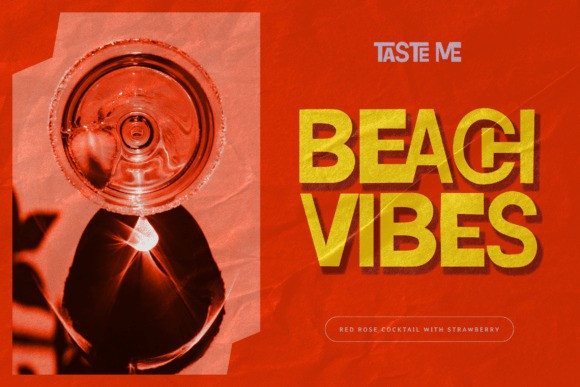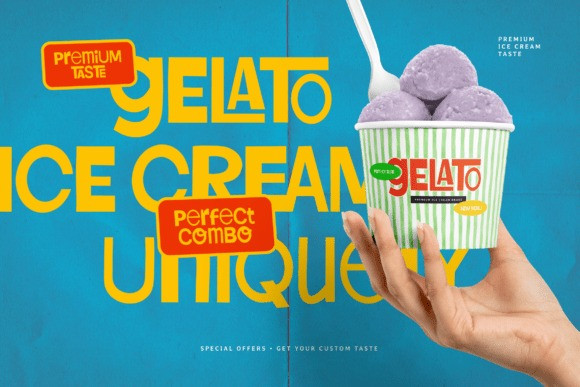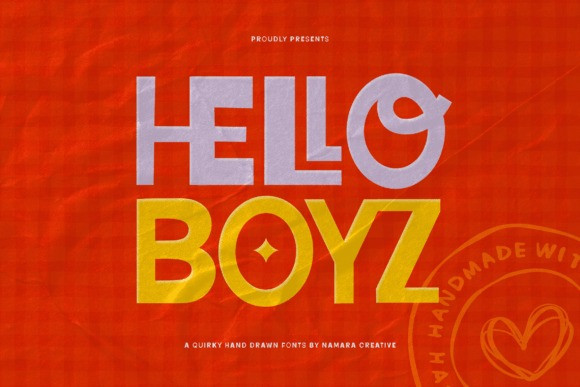
Hello Boyz Font
Hello Boyz Font a meticulously crafted display font that blends a fun, hand-drawn aesthetic with a bold and confident presence. This quirky typeface is designed to stand out, offering a unique combination of rounded letterforms and a subtle, realistic texture that gives your projects an authentic, custom-made feel.
Whether you’re aiming for a modern retro vibe or a playful, eye-catching look, Hello Boyz is your go-to solution for making a statement. Its thick, friendly strokes are perfect for headlines and logos that demand attention without taking themselves too seriously.